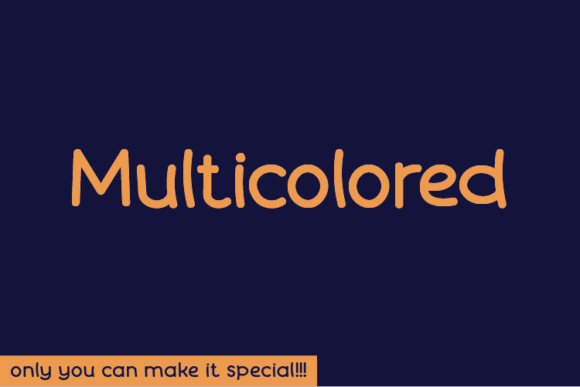
Dive into the world of captivating expressions with Multicolored Font - a script font family that embodies the essence of authentic handwriting. Crafted by the visionary Hanna Bie, Multicolored is a masterpiece that retains the natural flow and charm of handwritten characters, preserving the unique indentations that add depth and personality to every letterform.
Journey through a symphony of creativity with Multicolored, the perfect font for capturing heartfelt quotes, jotting down meaningful notes, creating visually stunning tees, and transforming product designs into works of art. Its versatility extends beyond personal use, inviting businesses to embrace the power of handwritten typography in their branding, marketing, and social media endeavors.
Indulge in the tactile experience of Multicolored, a font that exudes warmth and authenticity. Its meticulously crafted characters evoke a sense of genuine connection, inviting readers to engage with your content on a deeper level. Whether you're a passionate designer, a storyteller weaving captivating tales, or an entrepreneur seeking to leave a lasting impression, Multicolored is your perfect companion.
Let Multicolored be your muse, inspiring you to create designs that resonate with audiences, stir emotions, and leave an indelible mark. Embrace the beauty of imperfection, the allure of individuality, and the timeless elegance of handwritten artistry. With Multicolored, your words will not merely be read; they will be felt.